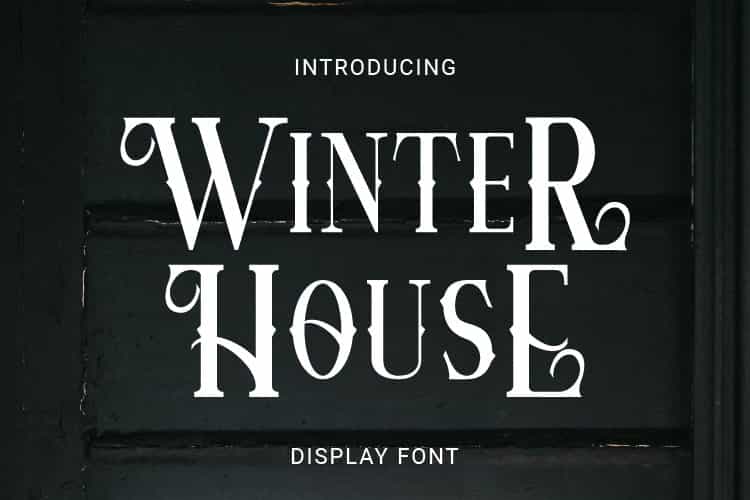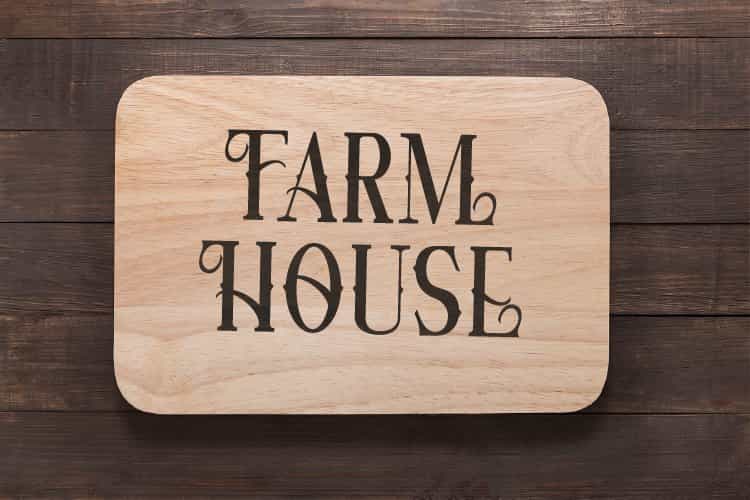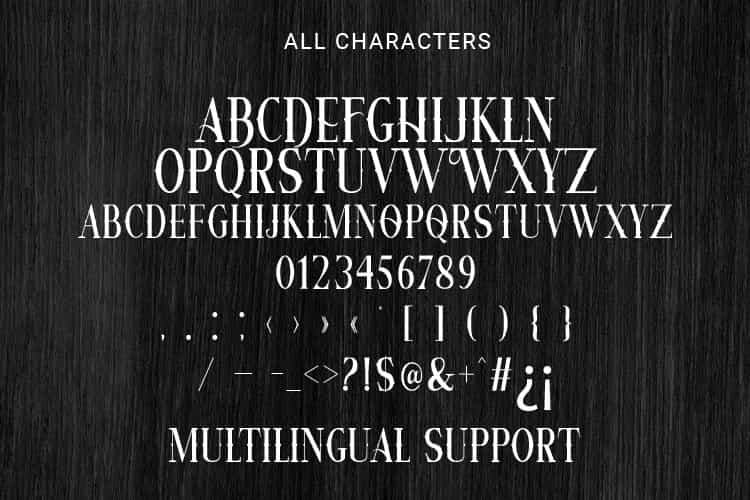
Winter House is an inventive display font with modern and contemporary aesthetics. Its sleek and elegant design make it perfect for branding projects, logo design, invitations, stationery designs and social media posts – don’t hesitate to use Winter House in any creative project and see the amazing results! Don’t wait; be inspired!